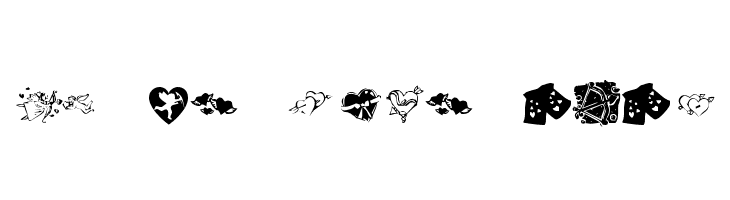
A decorative font with romantic and whimsical illustrations replacing characters.
A decorative font with romantic and whimsical illustrations.
A decorative set of romantic and whimsical illustrations featuring hearts, arrows, and cherubs.
A decorative font with romantic symbols like hearts and cherubs.
A decorative font with romantic and whimsical symbols replacing traditional characters.
A decorative set of romantic-themed graphics with hearts and love symbols.